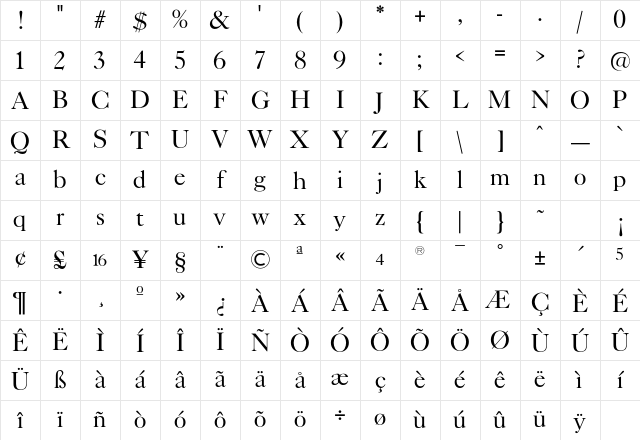
Complete TFCaslonTen Light glyph index. Displaying only characters natively supported by TFCaslonTen Light font.
TFCaslonTen is a composed and adaptable typeface that performs quietly and consistently across a wide range of design contexts. Its slender proportions lend an understated elegance to any composition.